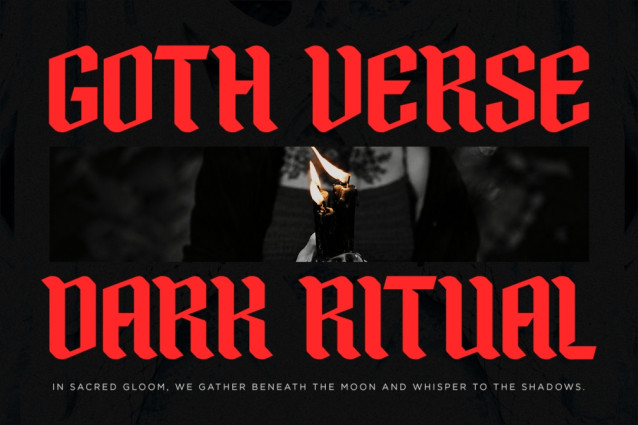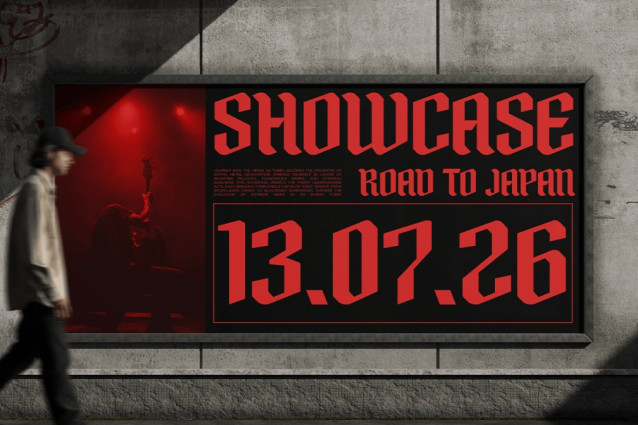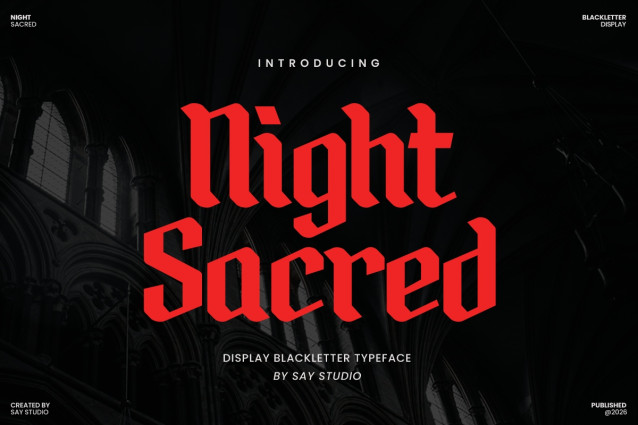
Night Sacred Font
Night Sacred is a bold Gothic Blackletter font inspired by medieval typography, dark aesthetics, and traditional blackletter lettering. Its dramatic and distinctive letterforms create a powerful visual presence, making it perfect for designs that demand a mysterious, rebellious, and timeless character.